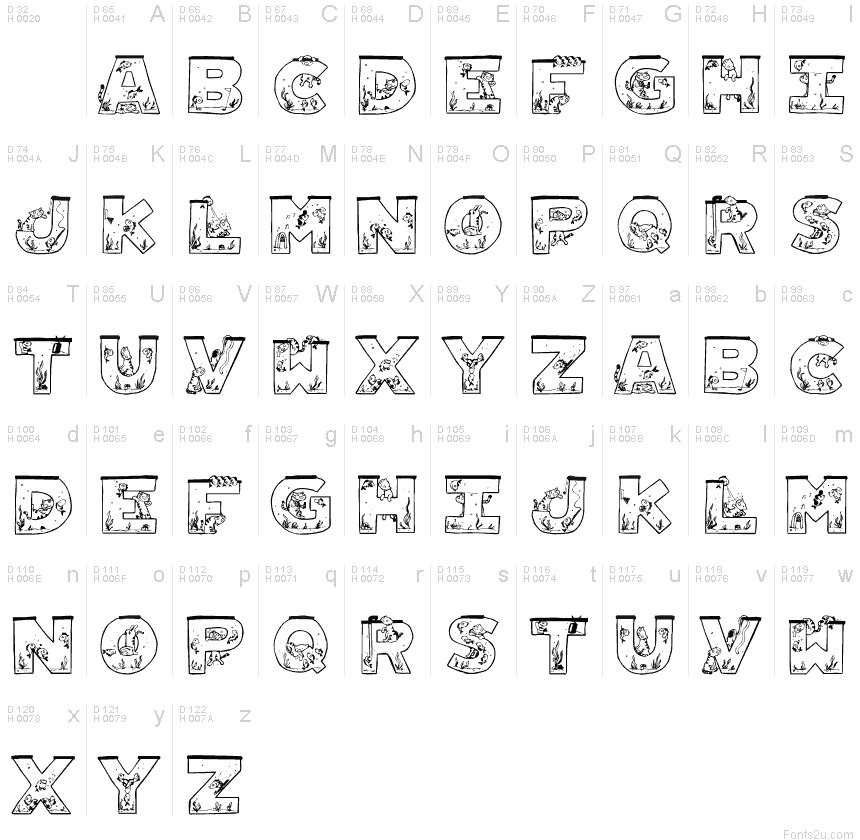
Aquarium
Aquarium font by Melle DERIEPPE Claude is a free decorative cartoon display typeface that turns every letter into its own tiny fish tank. Chunky outlines frame little underwater worlds filled with fish, plants, treasure chests, and drifting bubbles, giving the text a playful, hand-drawn storybook feel. The black-and-white, line-art style feels crisp yet whimsical, inviting color fills, textures, or even animation to bring each character to life.
Using Aquarium, headlines instantly feel like signage for a seaside arcade or a children’s marine park. This free font works beautifully for kids’ activity sheets, aquarium posters, party invitations, summer camp branding, classroom materials, and playful logos. Keep it large so the illustrated details stay clear, and pair Aquarium with a clean sans serif for body text to let the quirky, underwater letters stay in the spotlight.